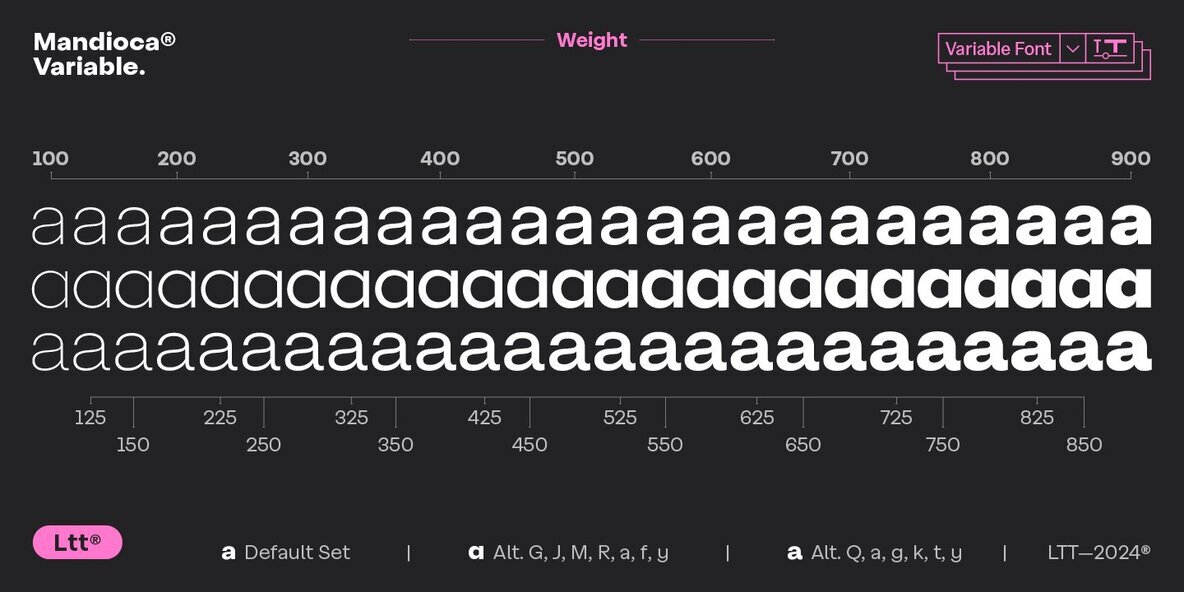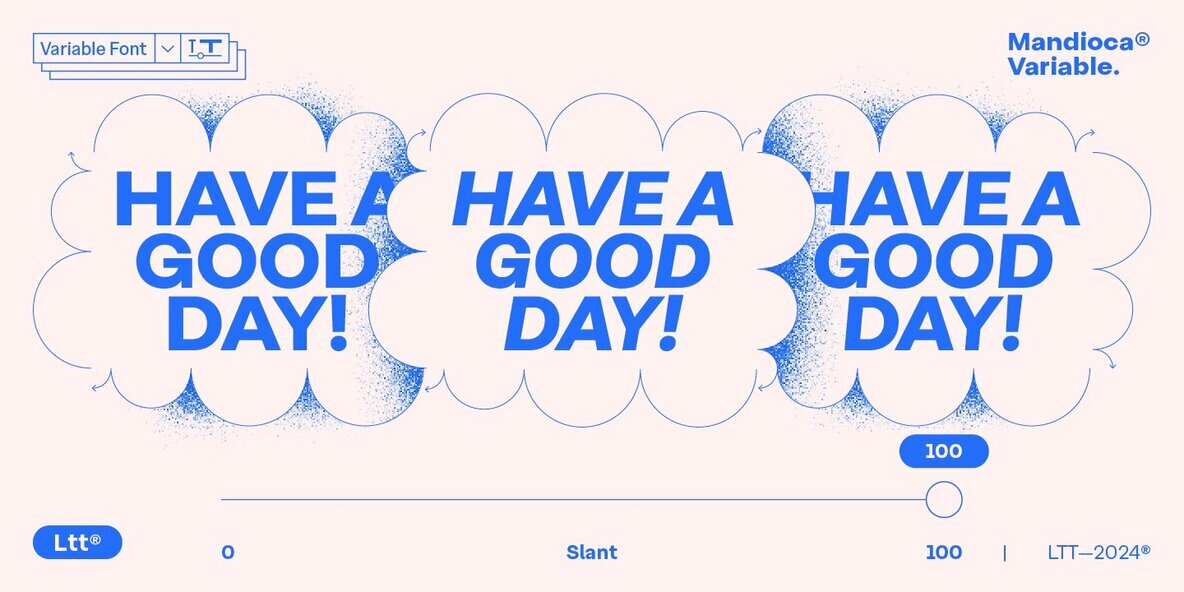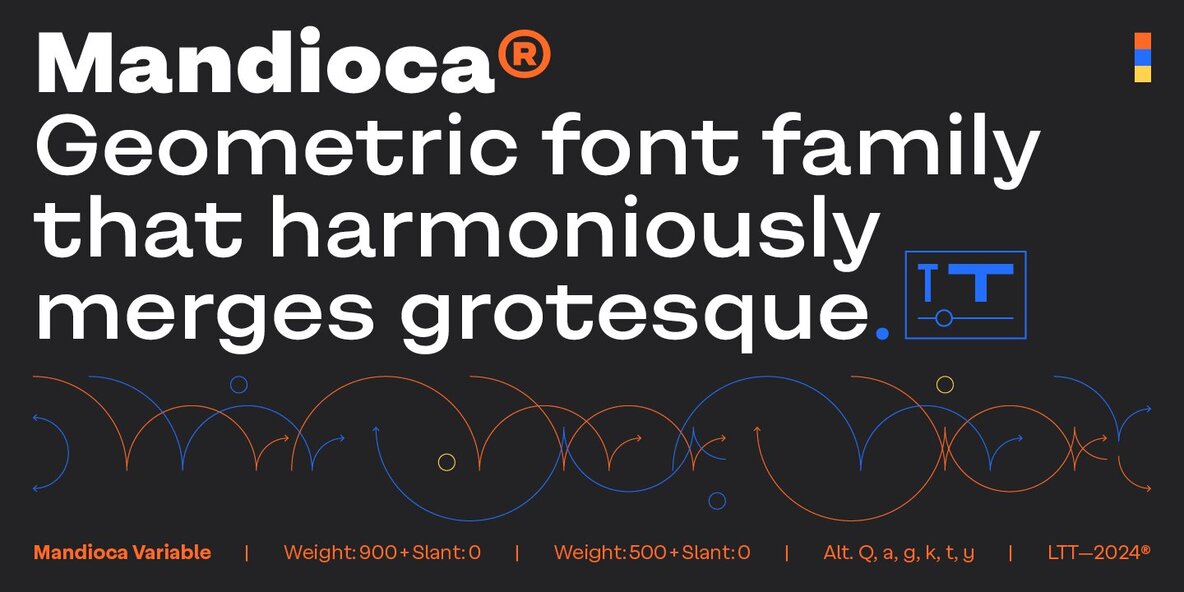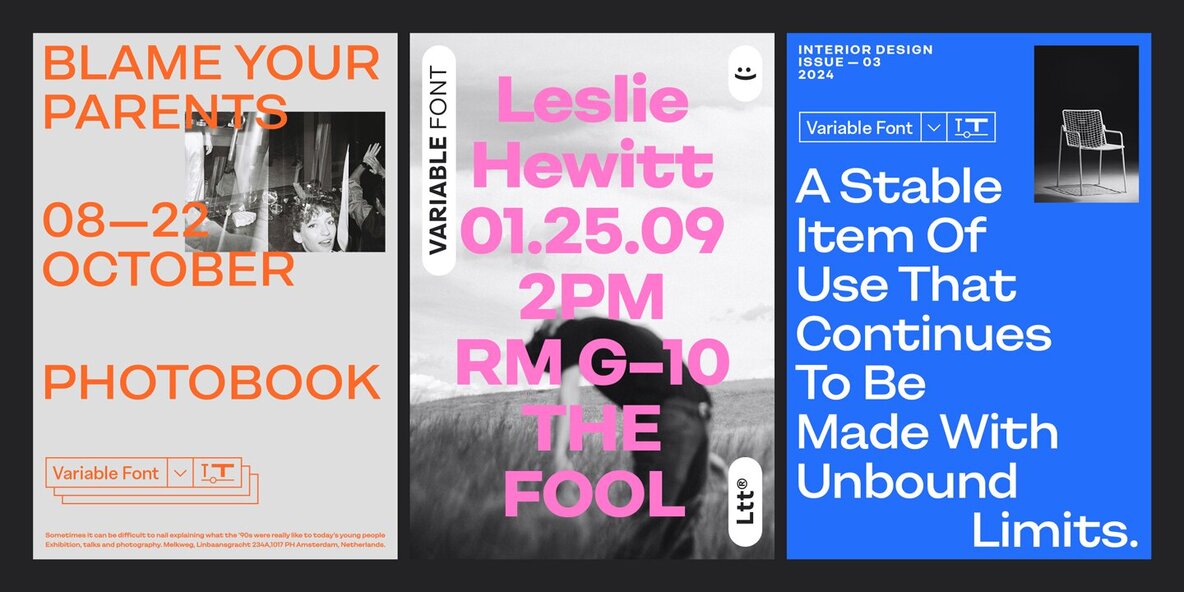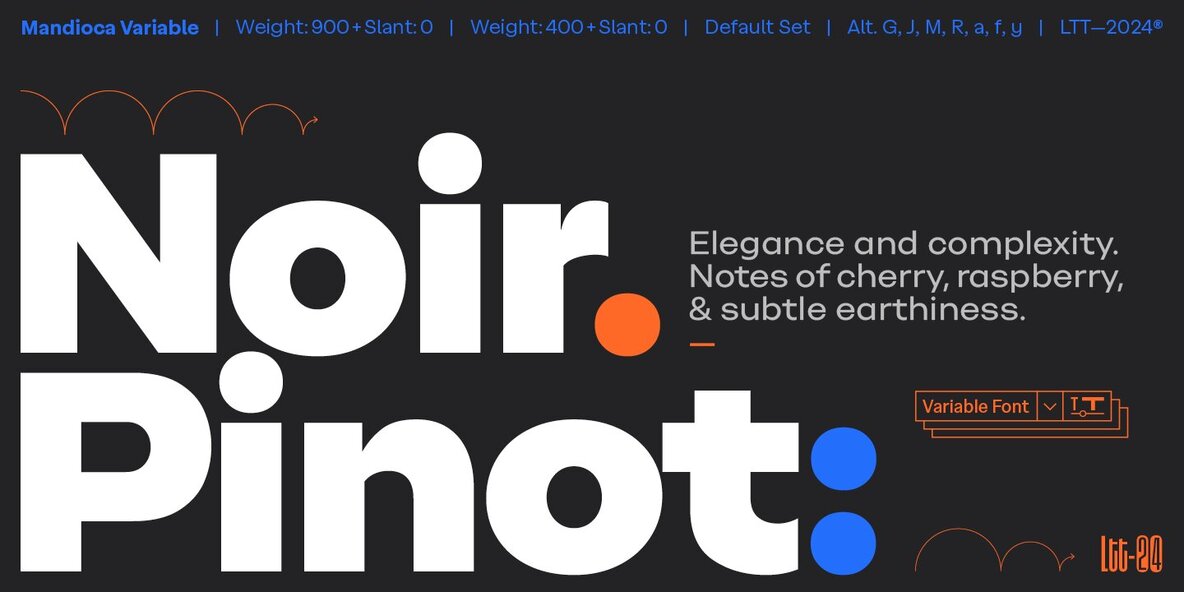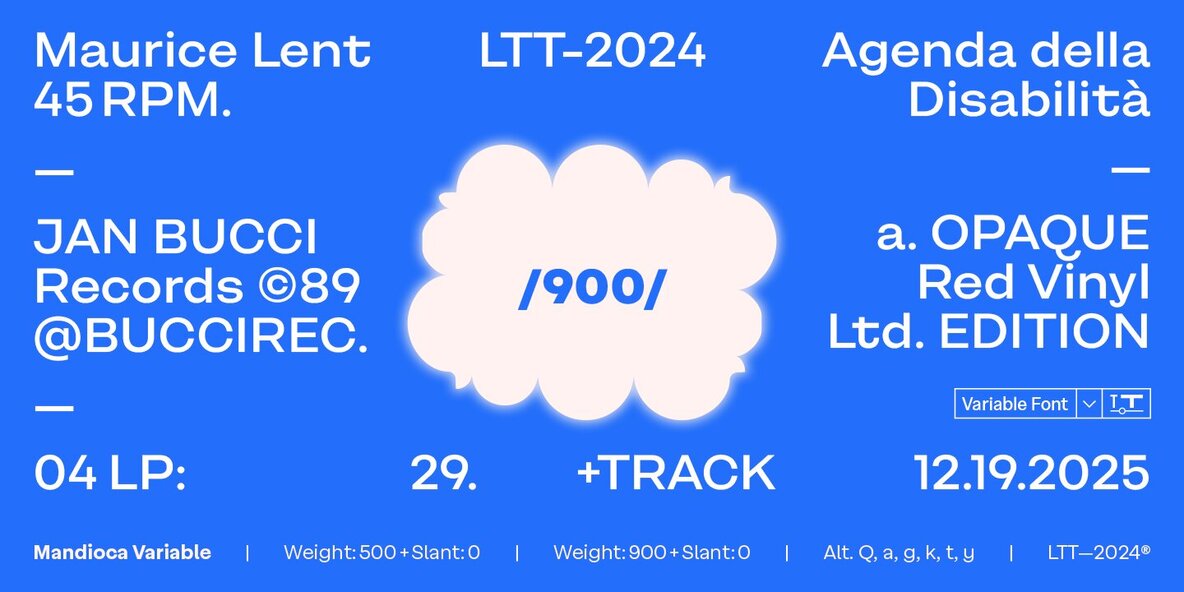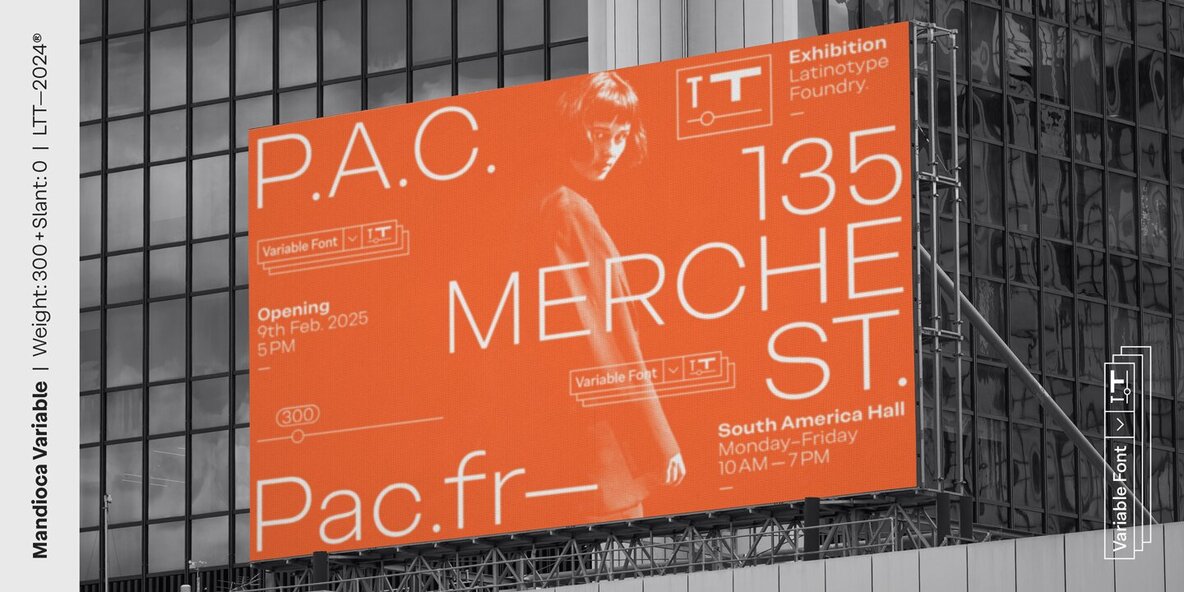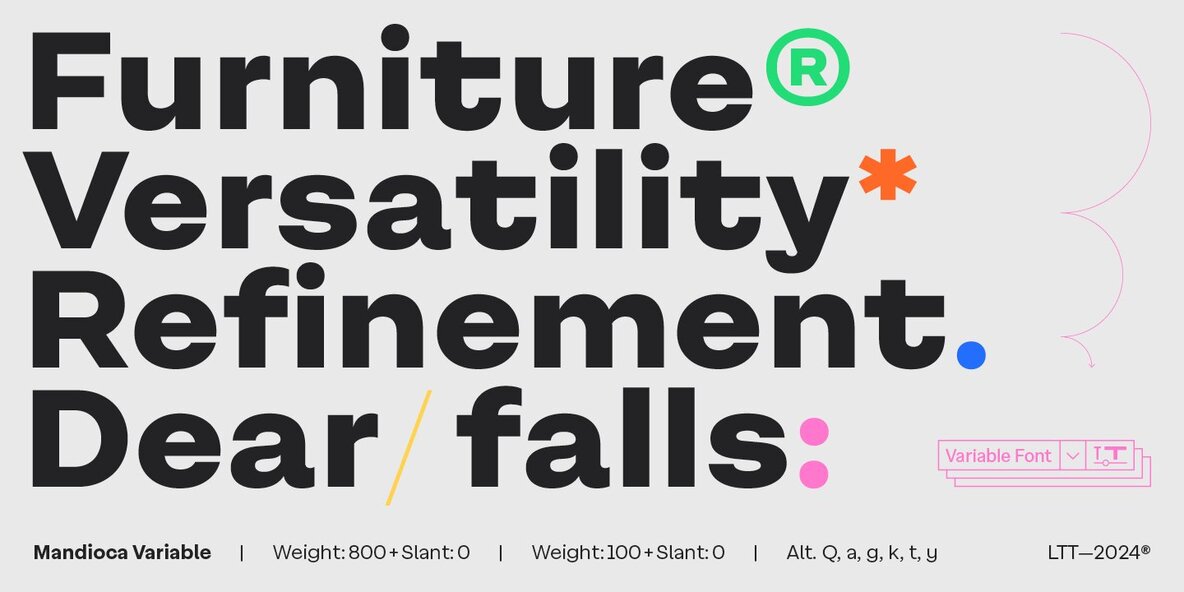
Mandioca Variable Font
Mandioca Variable
Mandioca is a geometric typeface family that fluidly integrates grotesque features with a distinctive personality. Its wide proportions with straight cuts at the ends, high "x" height, and compact ascenders and descenders give it an authentic and timeless identity. Mandioca Variable offers wide possibilities of use, allowing flexible adjustments in weights and styles, making it adaptable and functional to any typographic need.